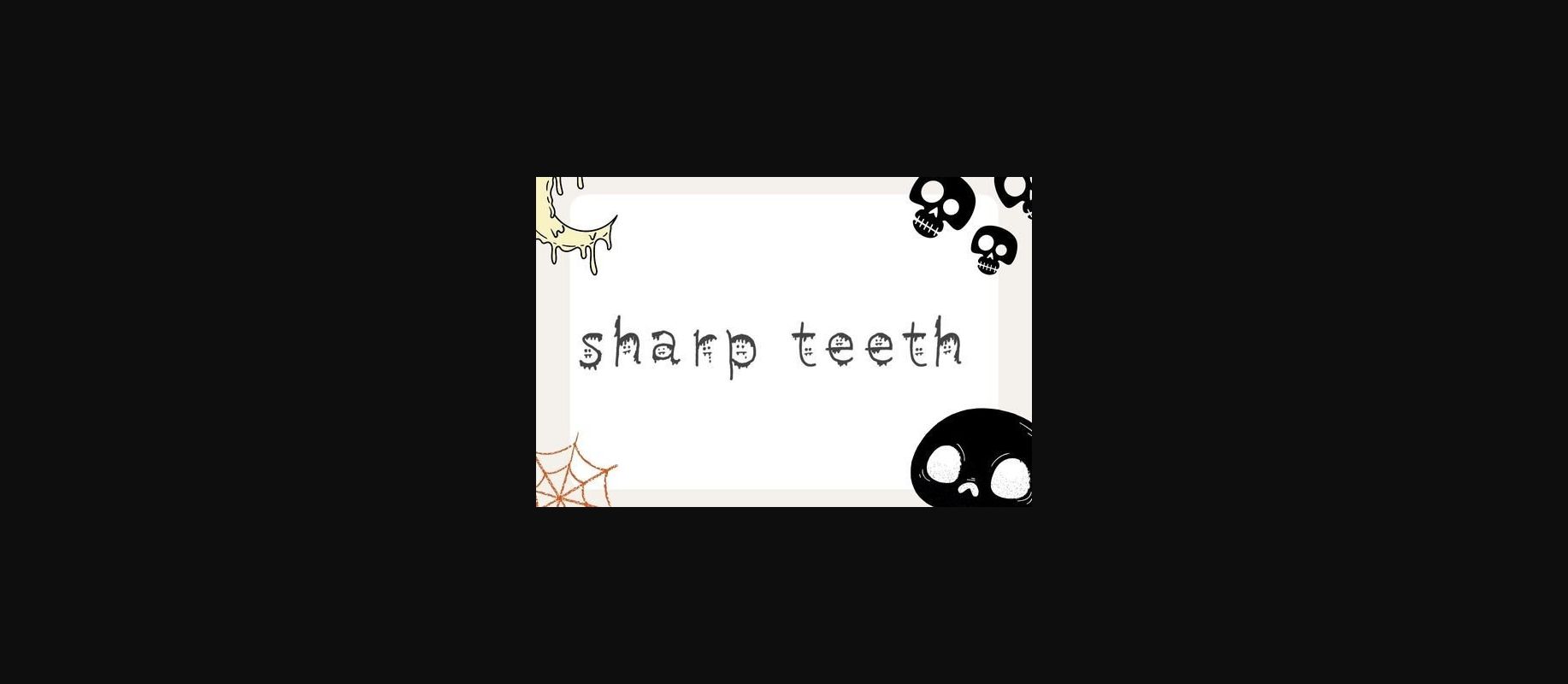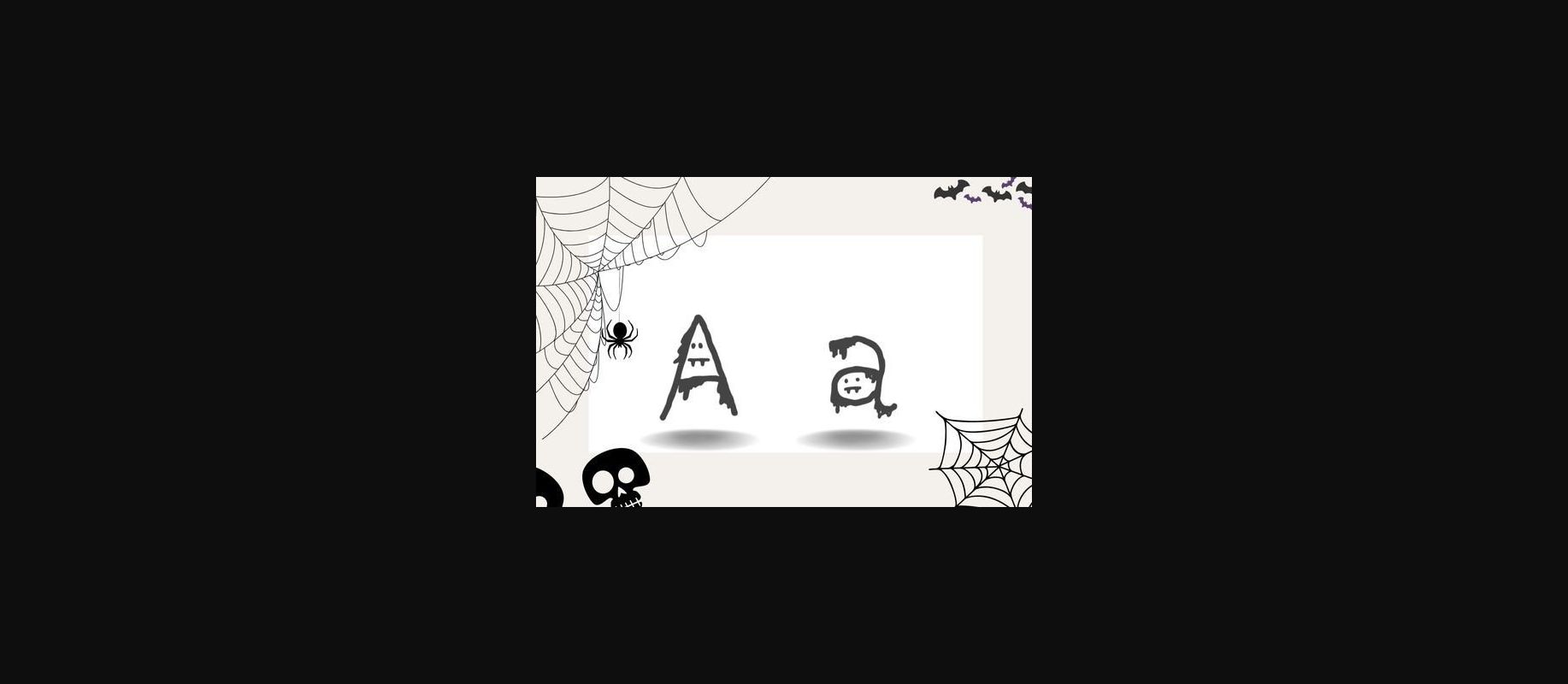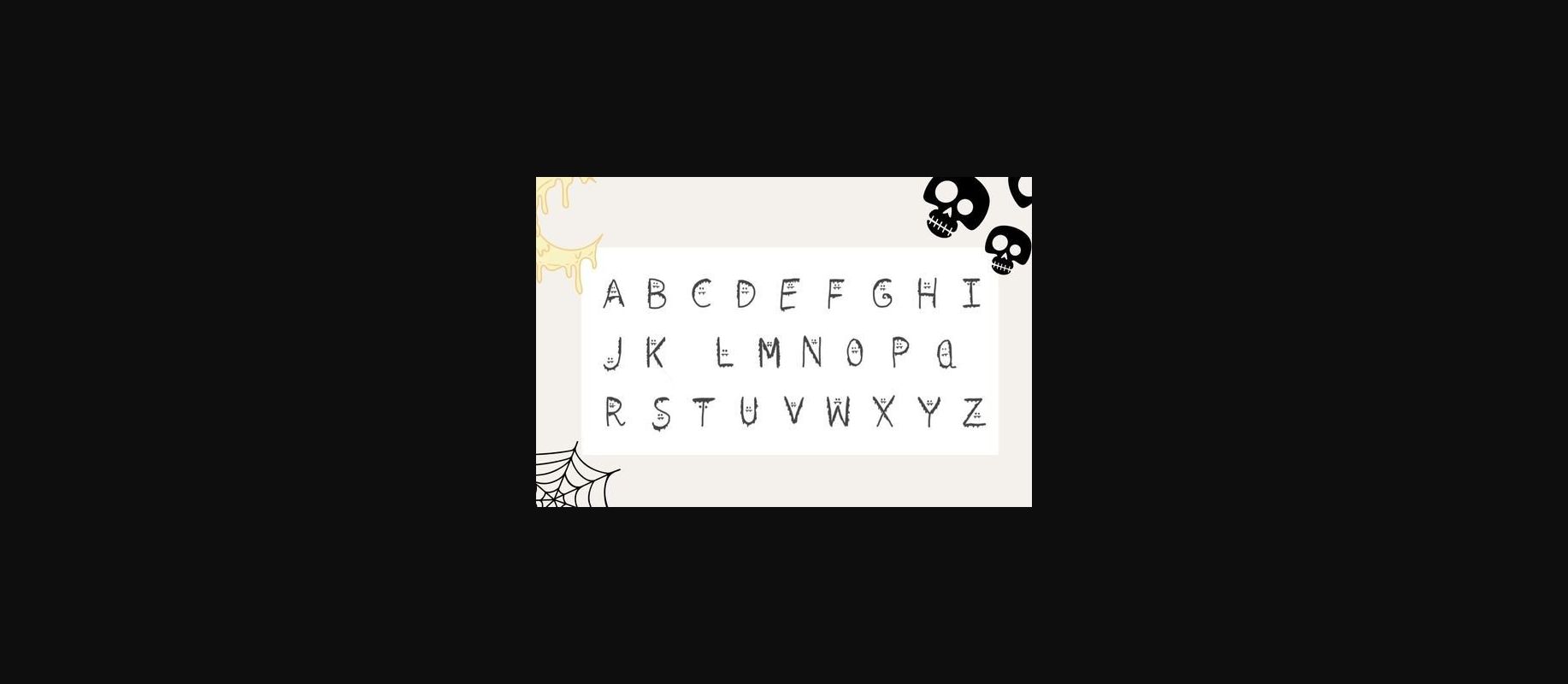
About Sharp Teeth Font
Sharp Teeth is a cute and Halloween-themed decorative font. Its lovely characters are perfect for bringing your spooky projects to life!